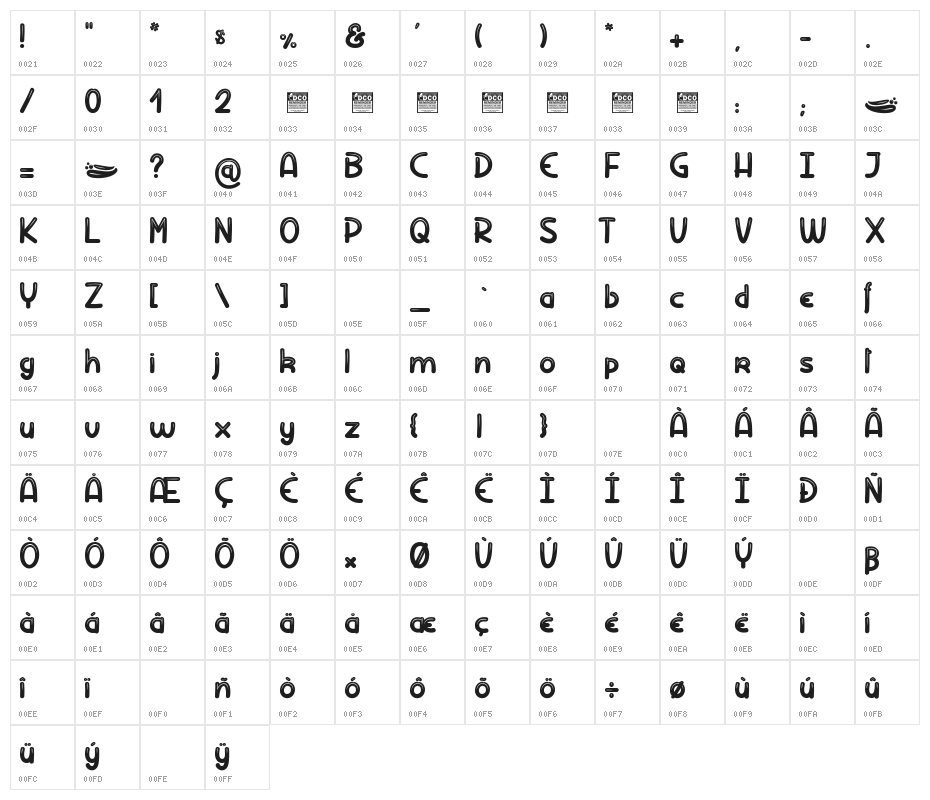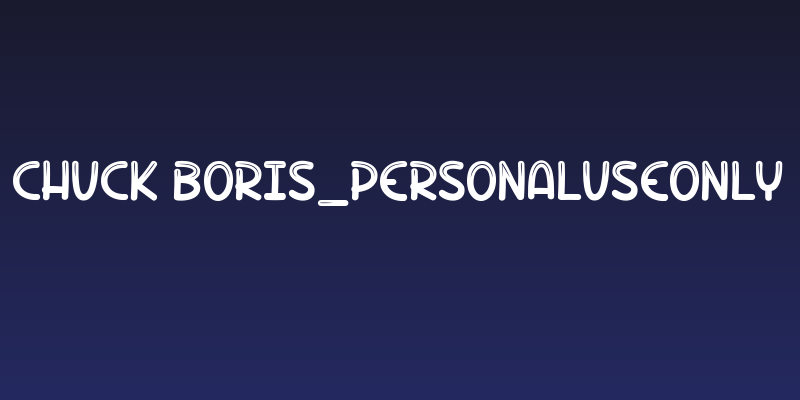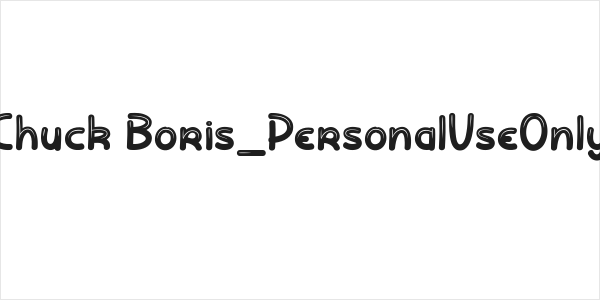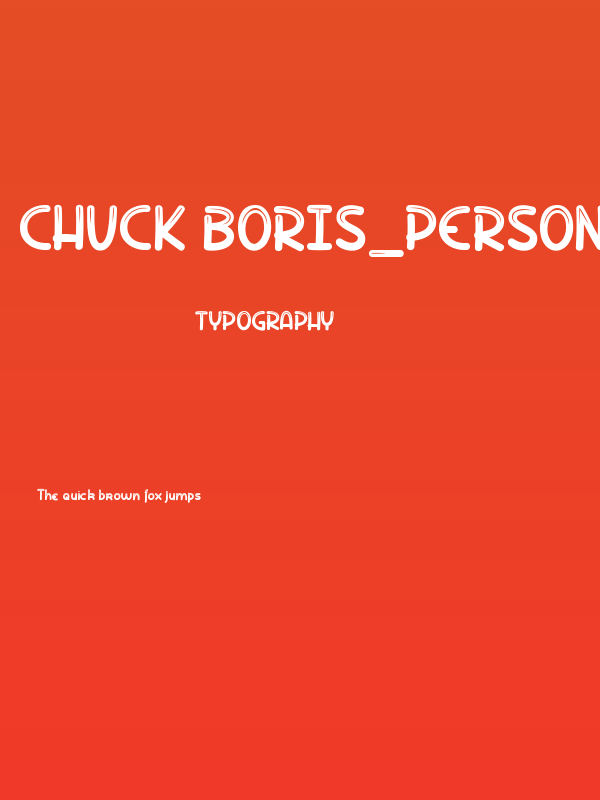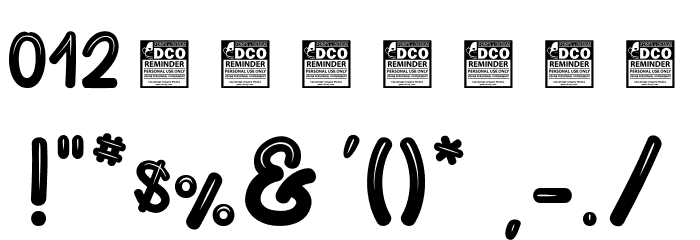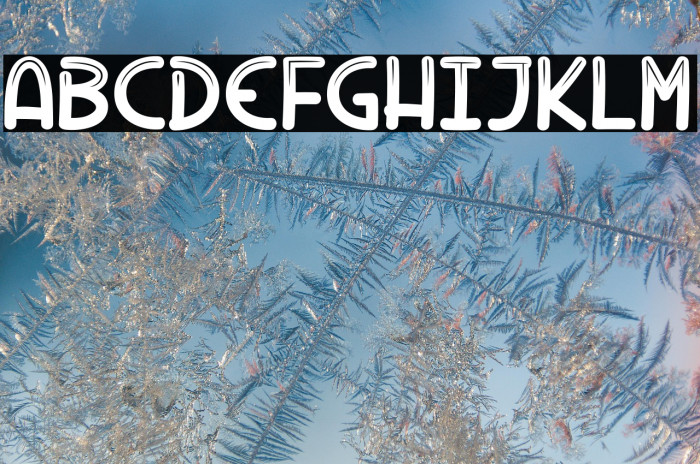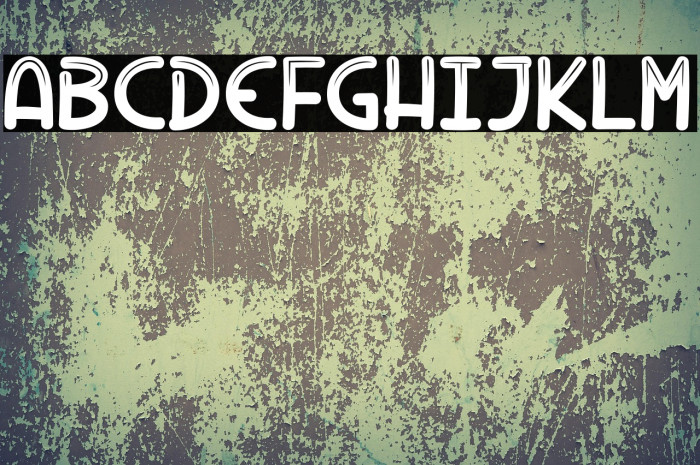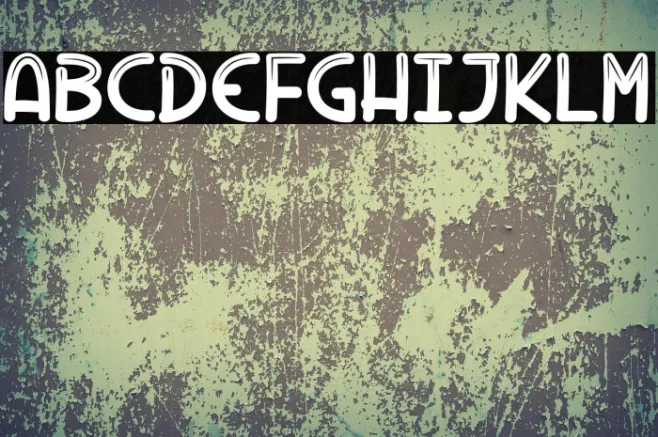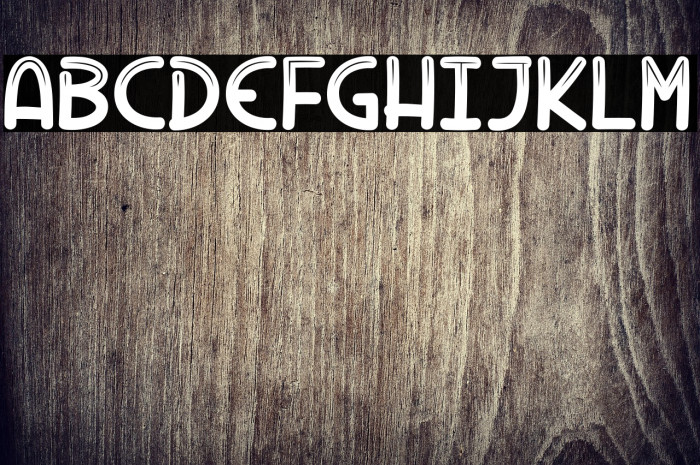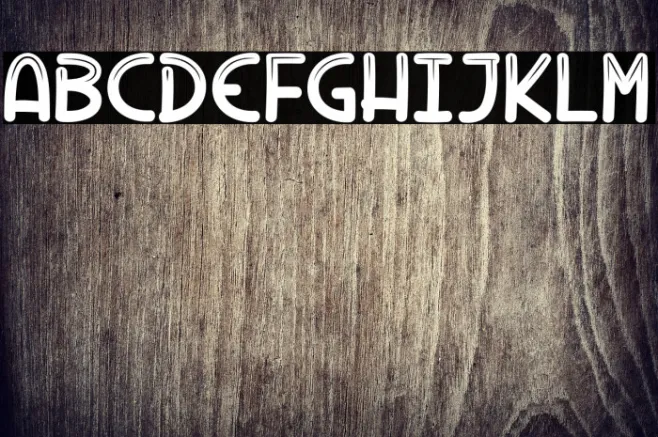
Chuck Boris_PersonalUseOnly Font
Chuck Boris_PersonalUseOnly Description
This font features a playful and bold style with rounded edges, giving it a friendly and approachable appearance. The letters are thick and slightly irregular, adding a whimsical touch to the overall design. The uppercase and lowercase characters maintain a consistent style, with the lowercase letters being slightly more compact. The numbers and special characters follow the same playful theme, ensuring a cohesive look across all text elements. This font is ideal for projects that require a fun and engaging aesthetic.